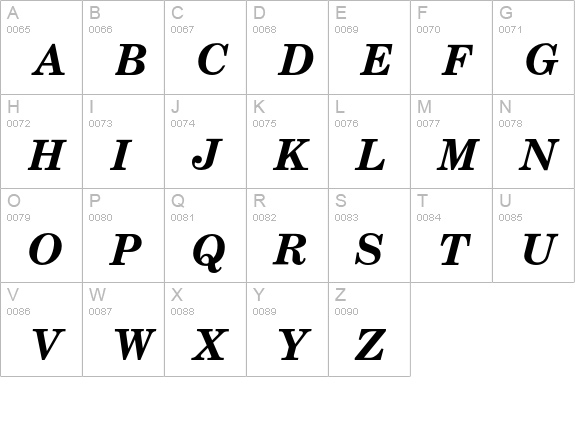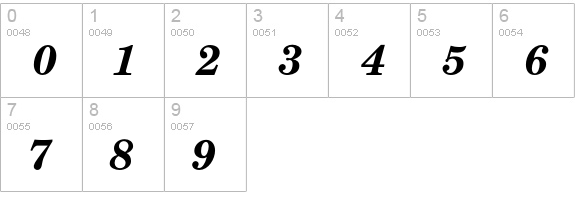
CenturySchoolBoldItalic Font Details
CenturySchoolBoldItalic font is a bold and elegant typeface that exudes sophistication and professionalism. Its distinctive italicized design adds a touch of flair to any text, making it perfect for a wide range of design projects. Whether you are creating logos, headers, posters, or other graphic materials, CenturySchoolBoldItalic font will make your text stand out with its bold and stylish appearance. This font is not only visually appealing but also highly versatile, making it suitable for both print and digital applications. The combination of bold weight and italic styling gives your text a strong and dynamic look that commands attention. Whether you are designing for a corporate presentation or a creative project, CenturySchoolBoldItalic font will elevate the visual impact of your work. Best of all, CenturySchoolBoldItalic font is available for free download at FontsMarket.com. Simply visit the website and add this font to your collection without any cost. With its high-quality design and free availability, CenturySchoolBoldItalic font is a must-have for any designer looking to add a touch of sophistication to their projects.